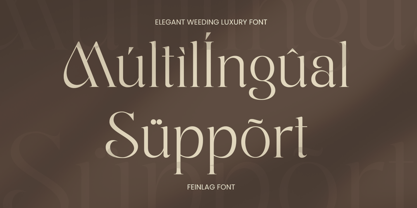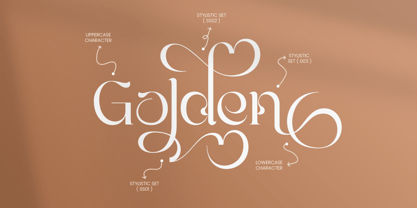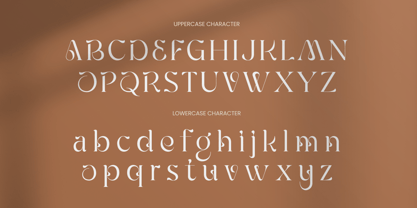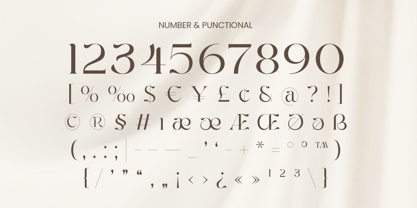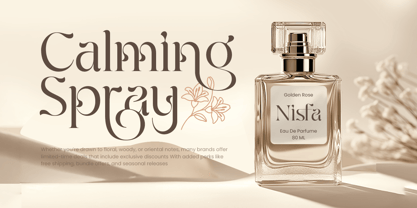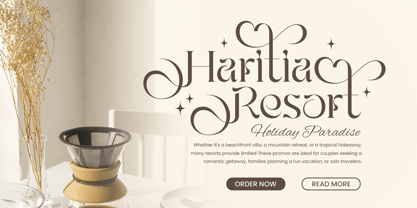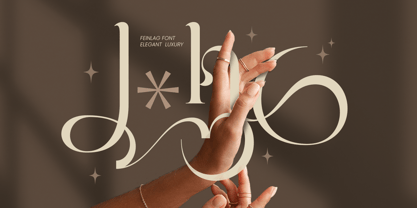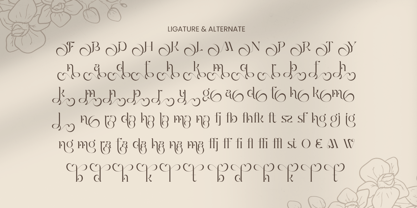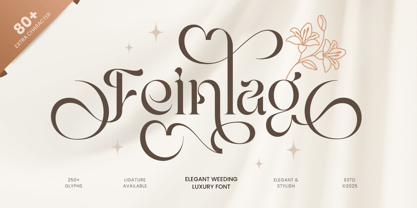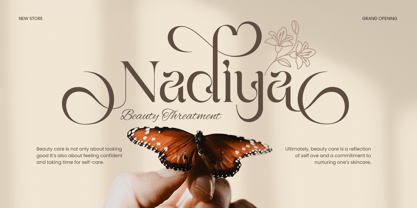
Feinlag
Feinlag is an elegant wedding luxury font designed to bring timeless beauty and refined charm to every detail of your design. Featuring graceful curves, delicate contrasts, and a sophisticated serif style, it’s the perfect choice for wedding stationery, luxury branding, and elegant editorial layouts.
Inspired by romance and high-end craftsmanship, Feinlag adds a sense of sophistication and warmth to invitations, packaging, and fashion-related projects. Its balanced structure and artistic ligatures make it a versatile typeface for designers seeking elegance with modern refinement.
Whether used for wedding monograms, brand logos, or magazine titles, Feinlag delivers exceptional style that elevates any creative composition.
Feinlag – Elegant Wedding Luxury Font Features
• Elegant serif typeface with romantic and luxury details
• Perfect for wedding invitations, logos, and fashion branding
• Refined curves and modern contrast for timeless elegance
• Ideal for high-end packaging and editorial design
• Uppercase, lowercase, numerals, and punctuation included
• OpenType features for advanced typographic creativity
Multilingual support for Afrikaans, Albanian, Asu, Basque, Bemba, Bena, Breton, Chiga, Cornish, Dutch, English, Estonian, Filipino, Finnish, Friulian, Galician, German, Gusii, Indonesian, Irish, Italian, Kabuverdianu, Kalenjin, Kinyarwanda, Luo, Luxembourgish, Luyia, Machame, Makhuwa-Meetto, Makonde, Malagasy, Manx, Morisyen, North Ndebele, Nyankole, Oromo, Portuguese, Quechua, Romansh, Rombo, Rundi, Rwa, Samburu, Sango, Sangu, Scottish Gaelic, Sena, Shambala, Shona, Soga, Somali, Spanish, Swahili, Swedish, Swiss, and more.
Celebrate love and elegance with Feinlag – the ultimate luxury font for wedding invitations, branding, and sophisticated design. 💍✨